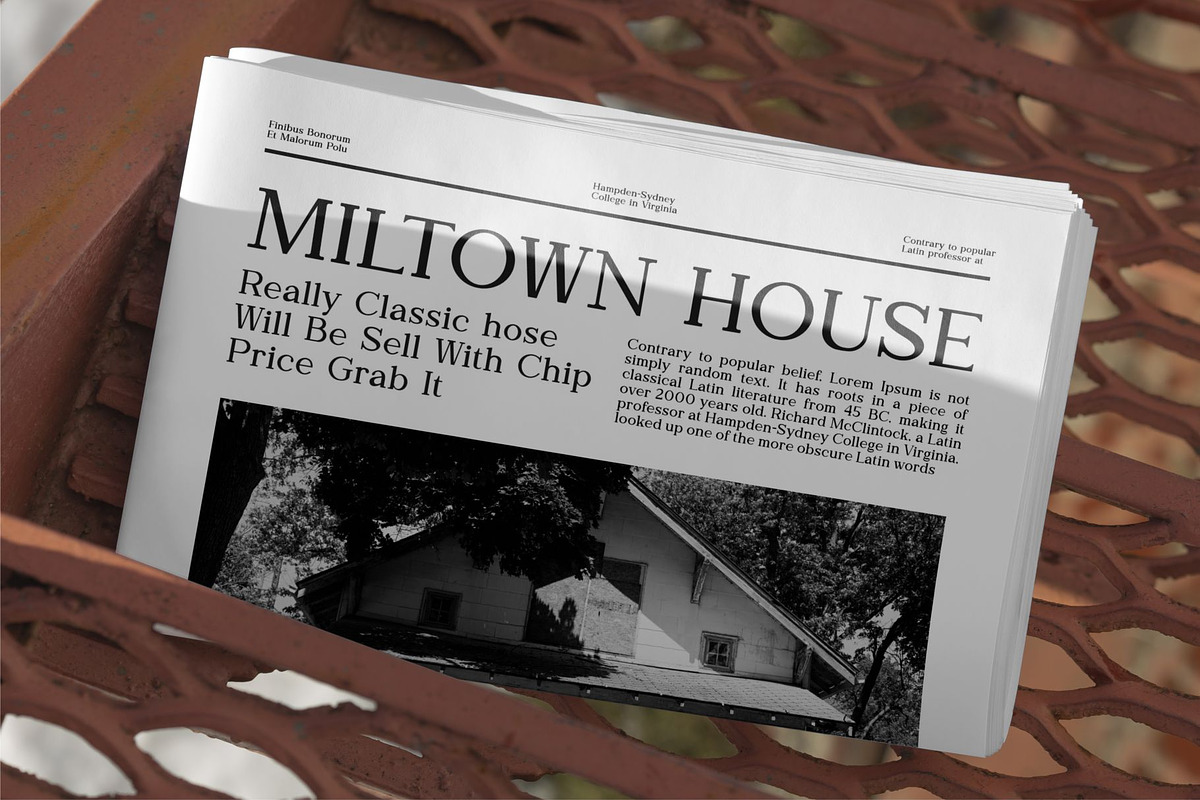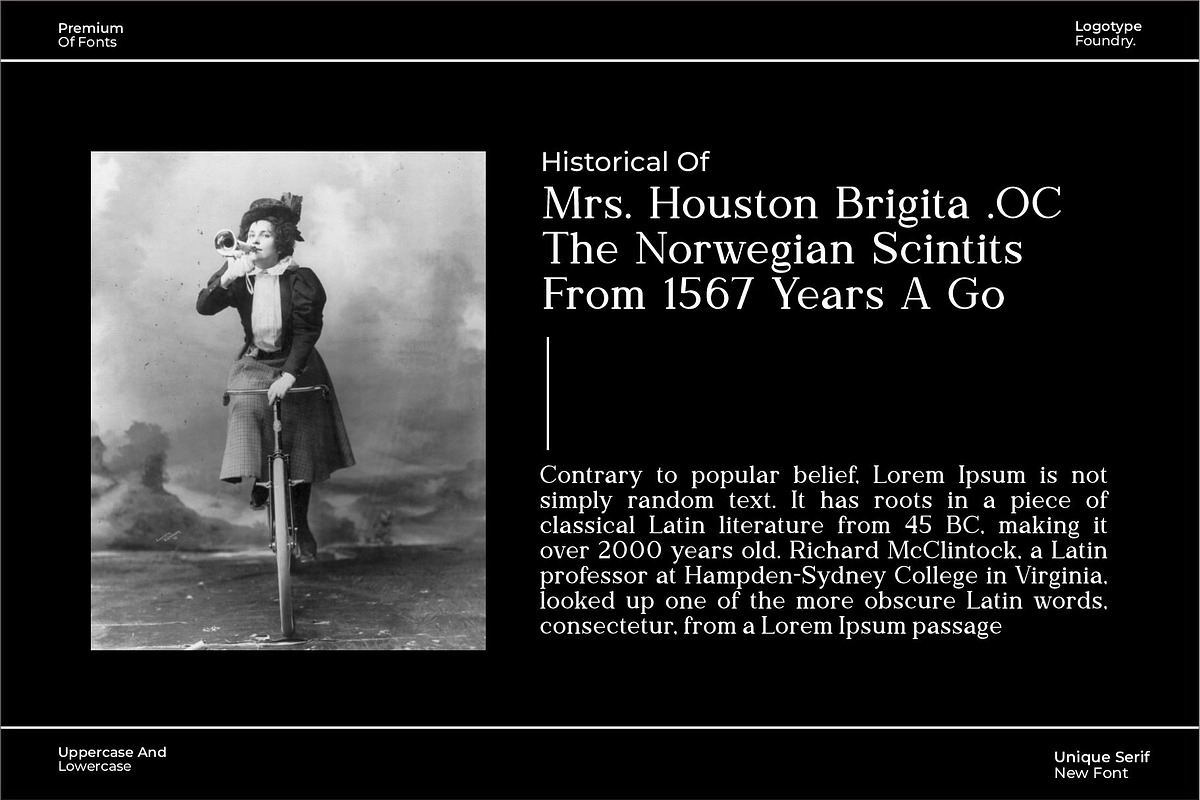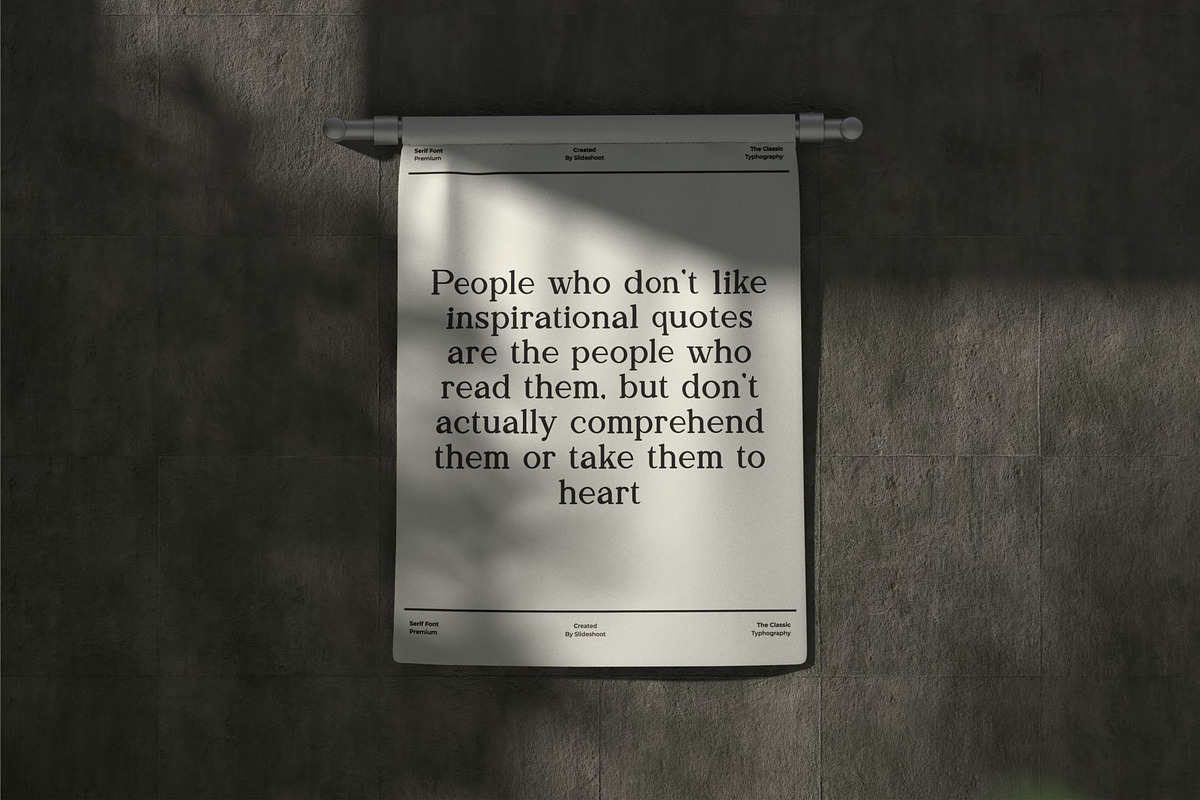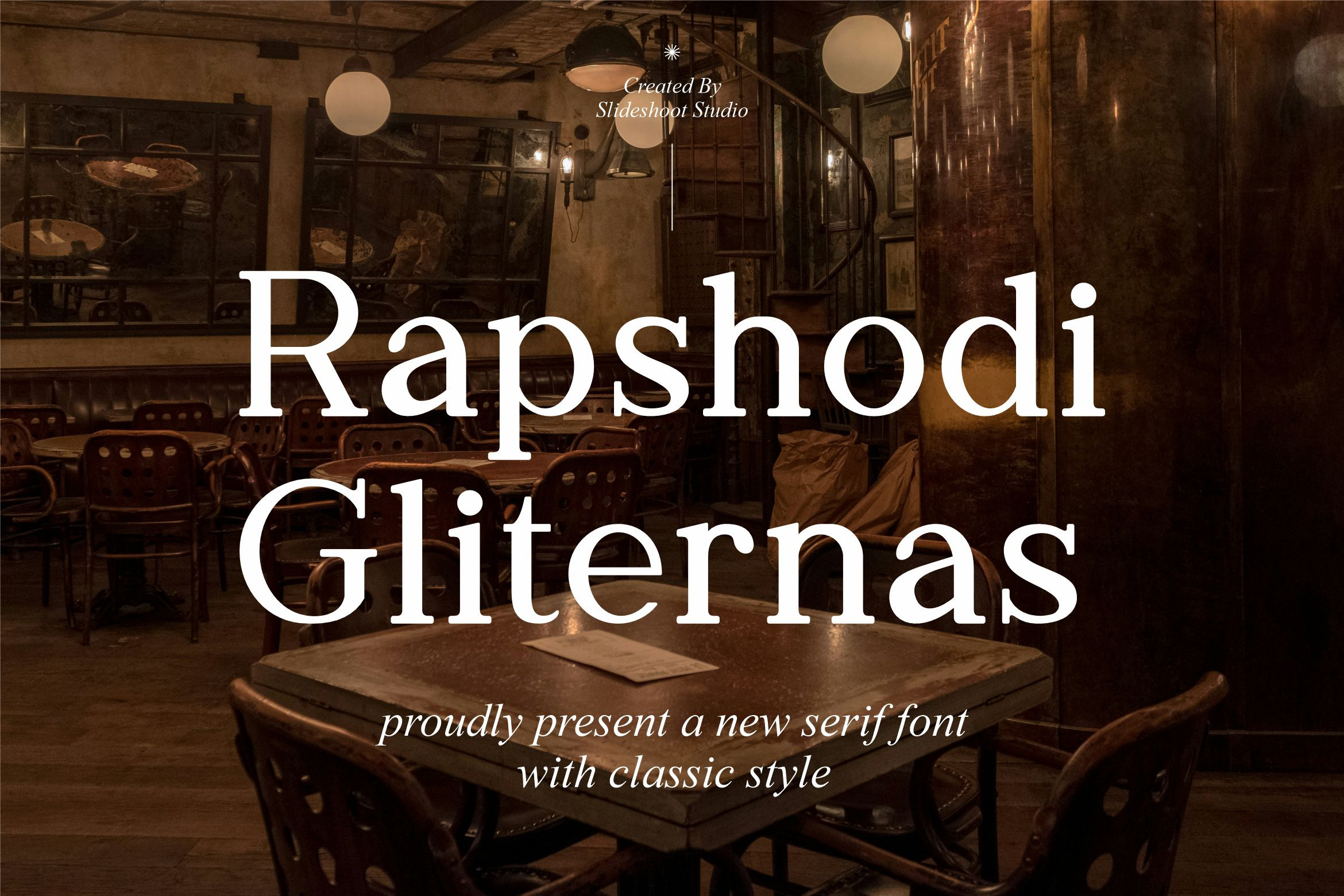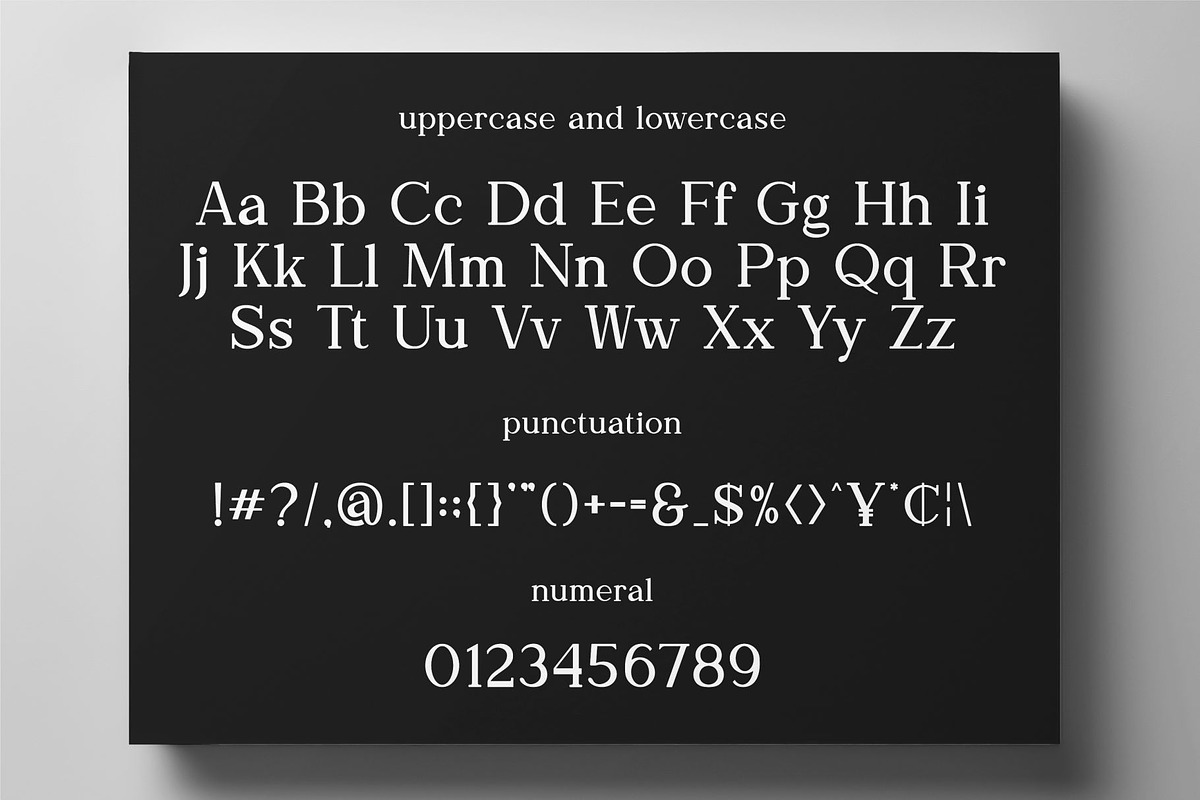
Rapshodi Gliternas || Serif Font
Introducing Raphsodi Gliternas is serif font with classic style, trendy, bouncy and cute display font. It has a unique character with wood theme. It is perfect to be combined with invitation card designs, company logos, movie titles, movie names, business cards, book titles, brand names and various other designs.